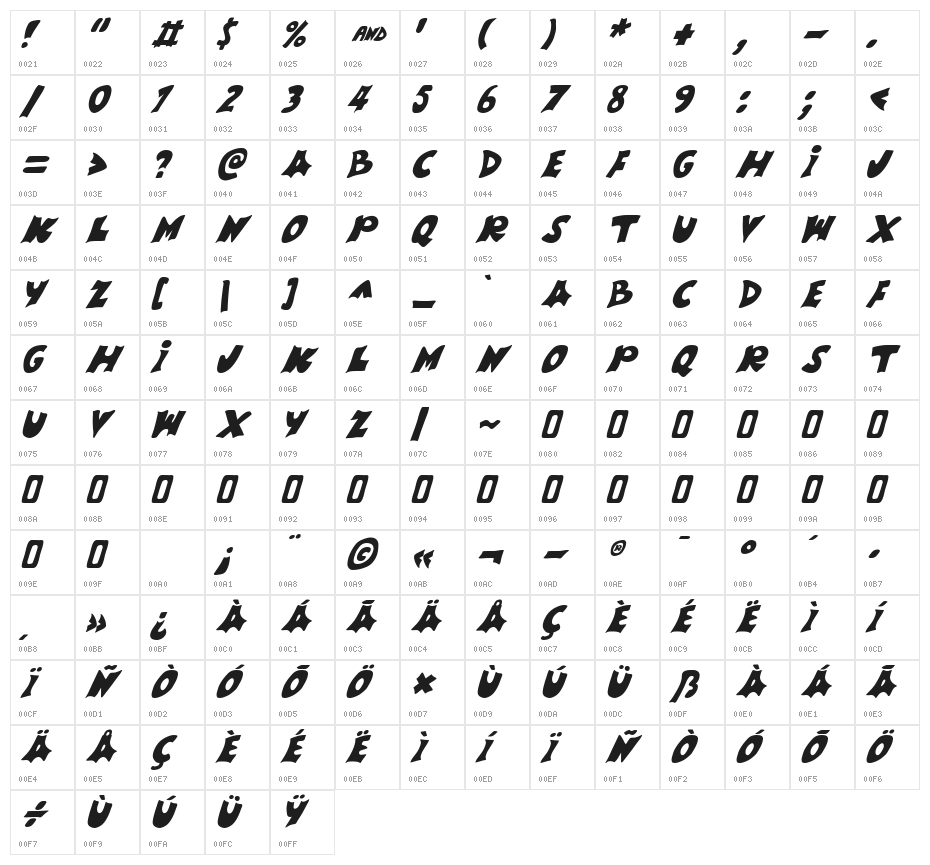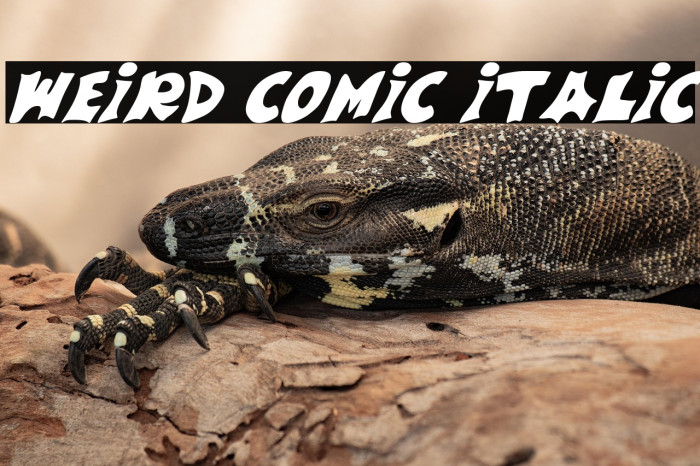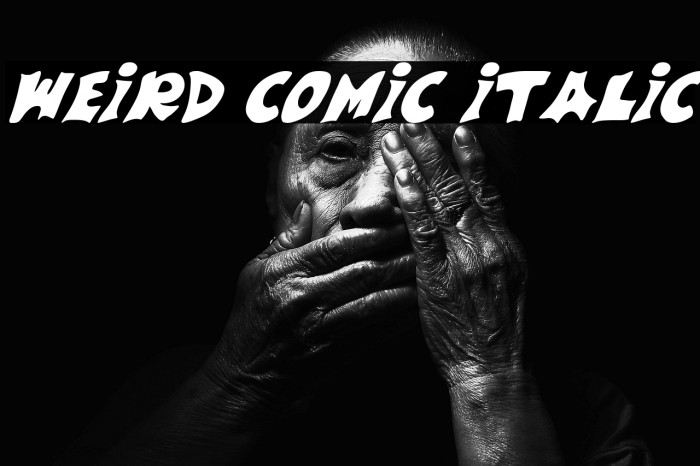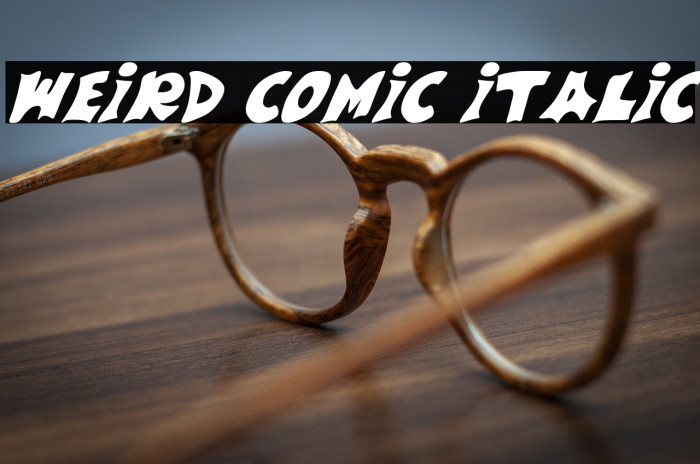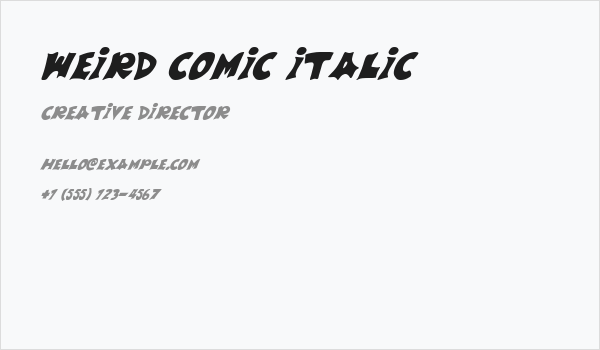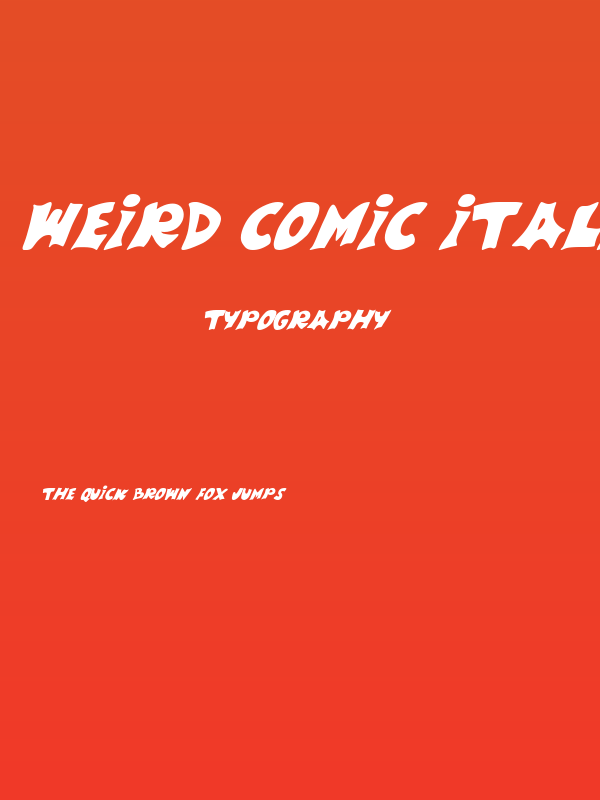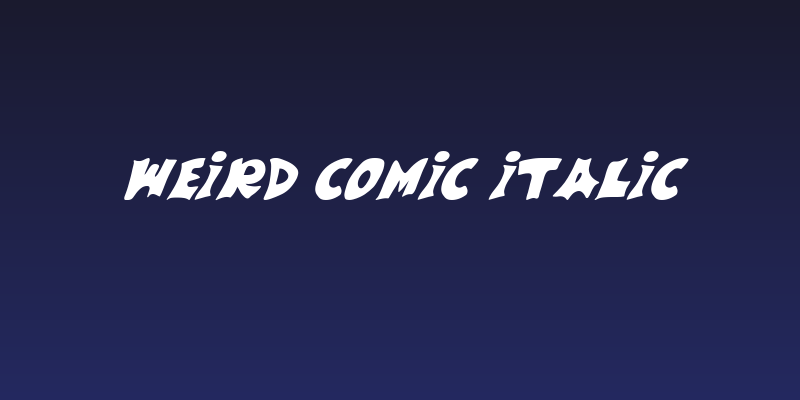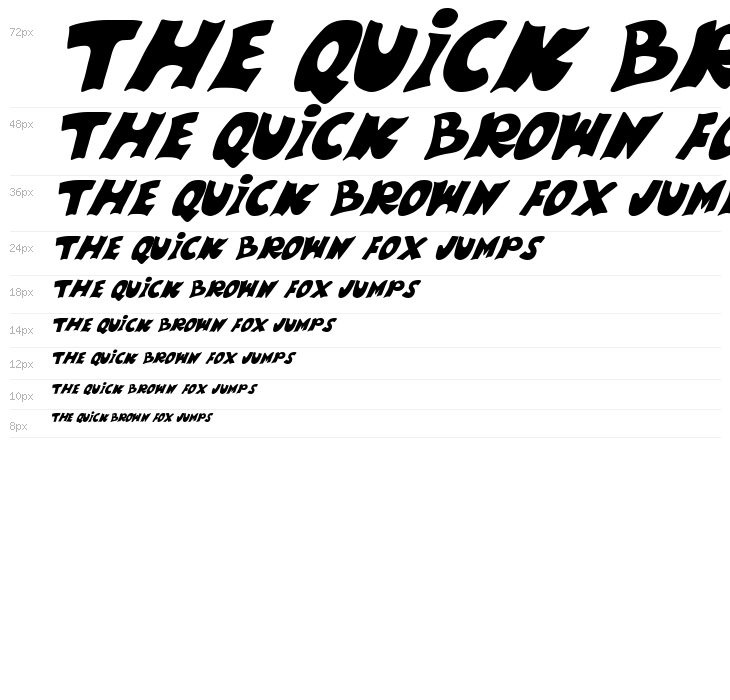
Weird Comic Italic Font
Weird Comic Italic Description
This font features a playful and dynamic style with exaggerated curves and a bold presence. The characters are slanted, giving an italicized appearance that adds a sense of movement and energy. The strokes are thick and uneven, contributing to a whimsical and informal look. The uppercase and lowercase letters maintain a consistent style, with rounded edges and a slightly irregular baseline. The numbers and special characters follow the same lively design, making the font suitable for creative and fun projects.
| Overall Style | Playful, Whimsical, Energetic |
| Proposed Projects | Ideal for comic books, children's books, playful branding, posters, and any project requiring a fun and energetic typeface. |